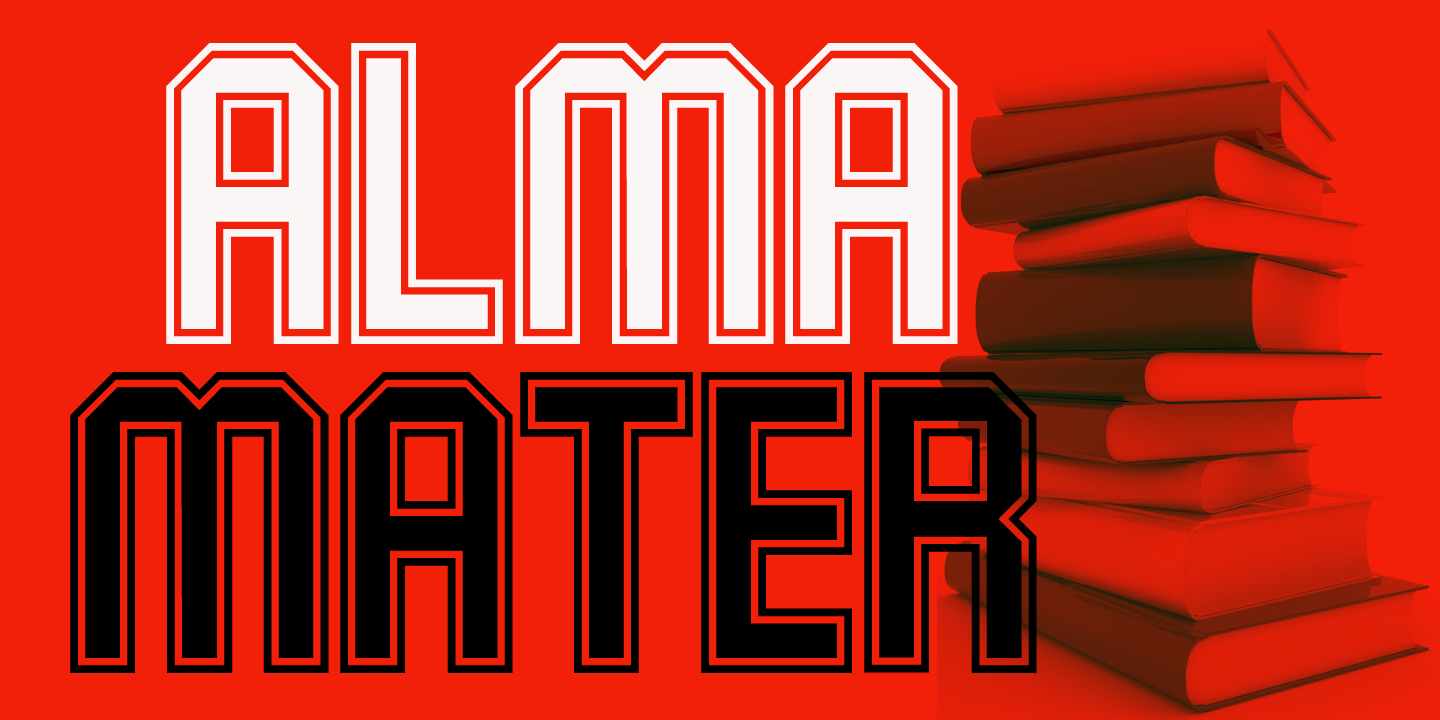
Alma Mater Font is ideal for university branding, academic publications, educational materials, school logos, graduation ceremonies, scholarly journals, library signage, alumni communications, academic conferences, and prestigious educational institution marketing.
What makes Alma Mater Font exciting is its sophisticated blend of traditional academic authority with contemporary accessibility that embodies the timeless pursuit of knowledge and scholarly excellence. This typeface features refined letterforms with classical proportions and scholarly details that convey institutional prestige while maintaining excellent readability for academic content. The font's dignified appearance and intellectual character make it perfect for educational institutions seeking to project credibility, tradition, and academic excellence.
Alma Mater Font family includes comprehensive weight options: Light, Regular, Medium, Bold, and Black variants, each available in Roman and Italic styles. The family also features small caps, old-style numerals, and specialized academic symbols designed for scholarly publications and educational communications.
Educational institutions and academic publishers consistently select Alma Mater Font Free Download for projects requiring scholarly credibility and institutional authority. The font's versatile nature excels in both digital learning platforms and traditional print materials, making it ideal for comprehensive educational branding systems. Whether you're designing for universities, research institutions, or academic publications, this distinguished typeface delivers the intellectual gravitas and educational excellence that inspires confidence in academic achievement and scholarly pursuit.